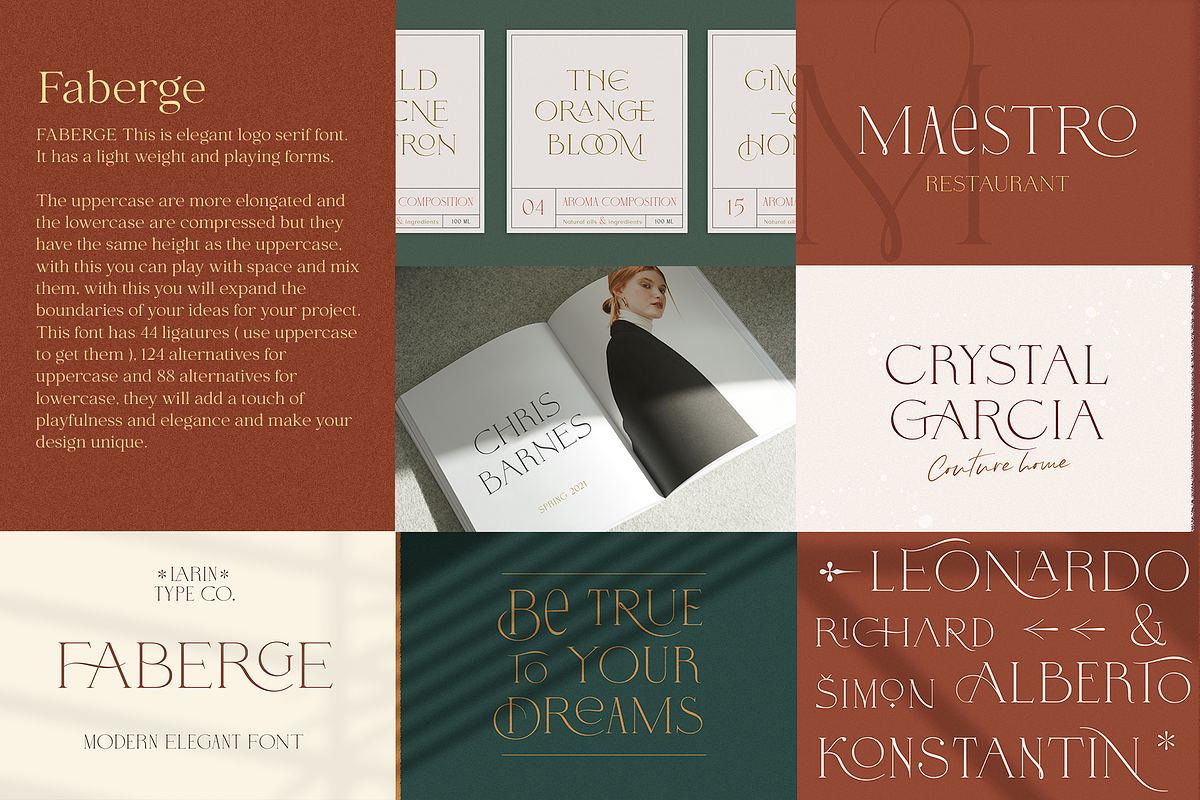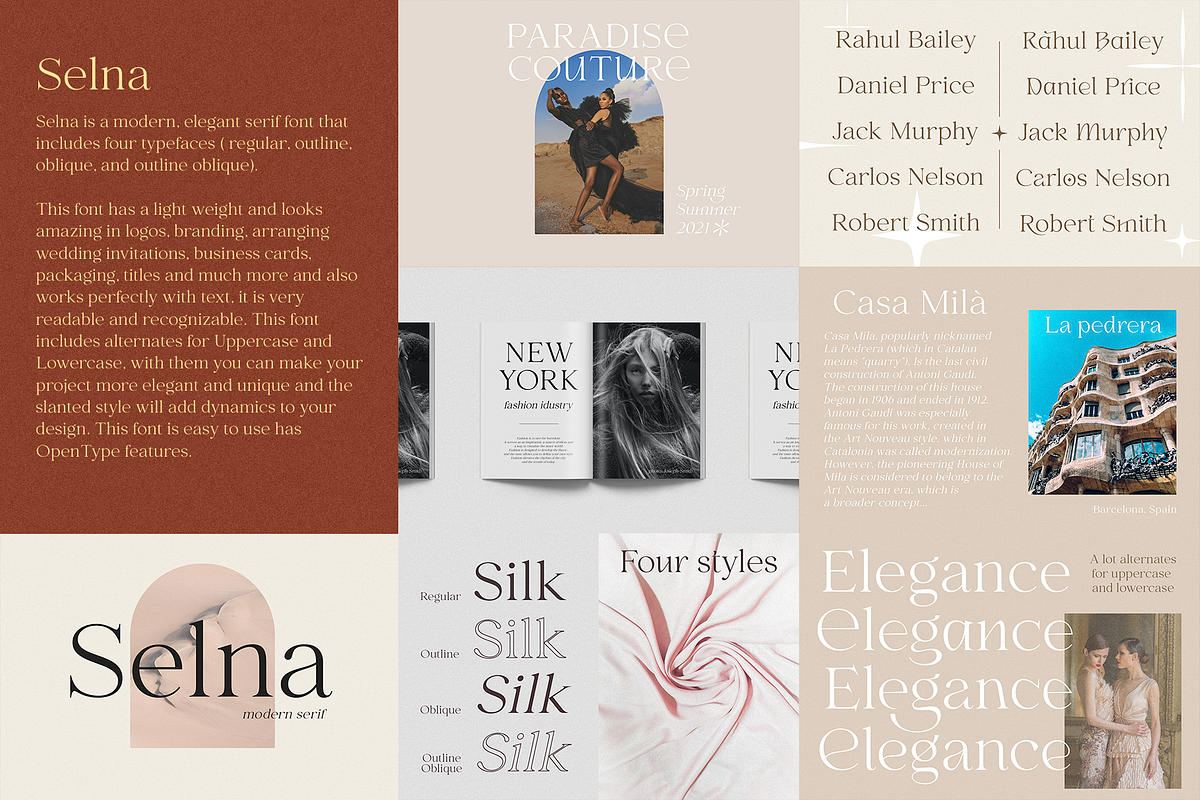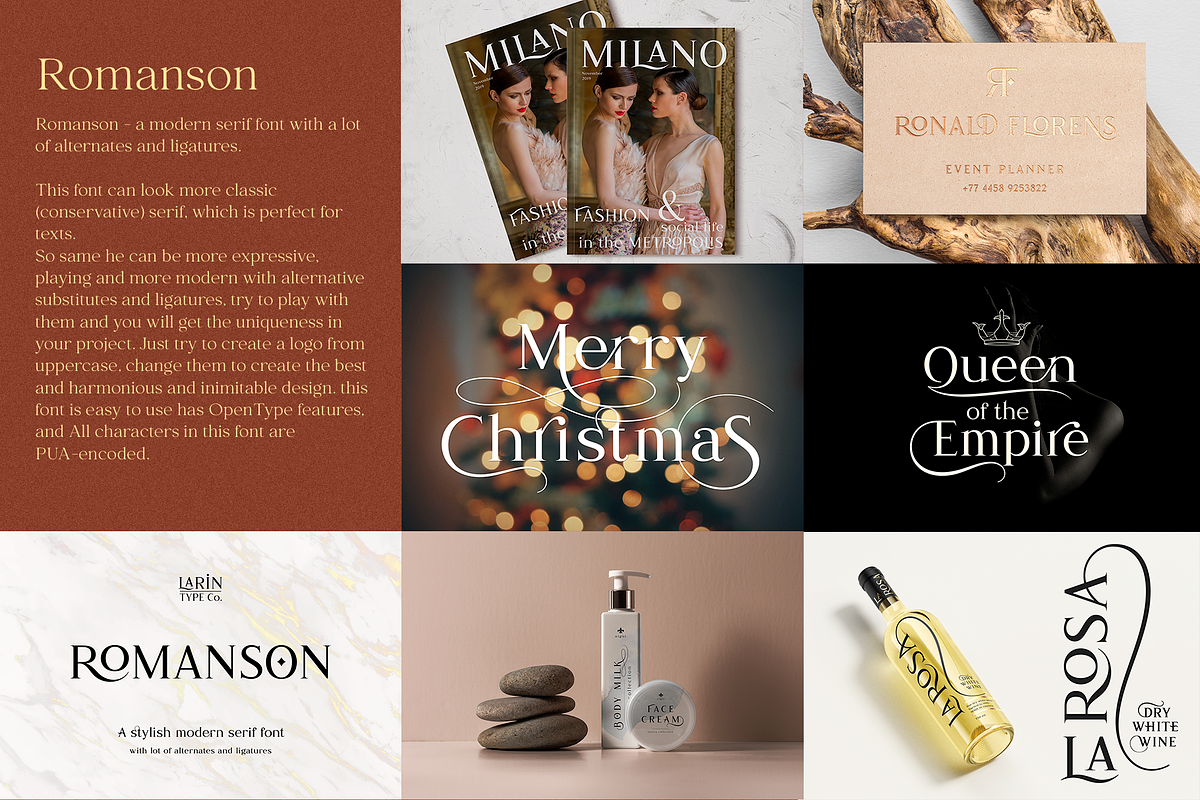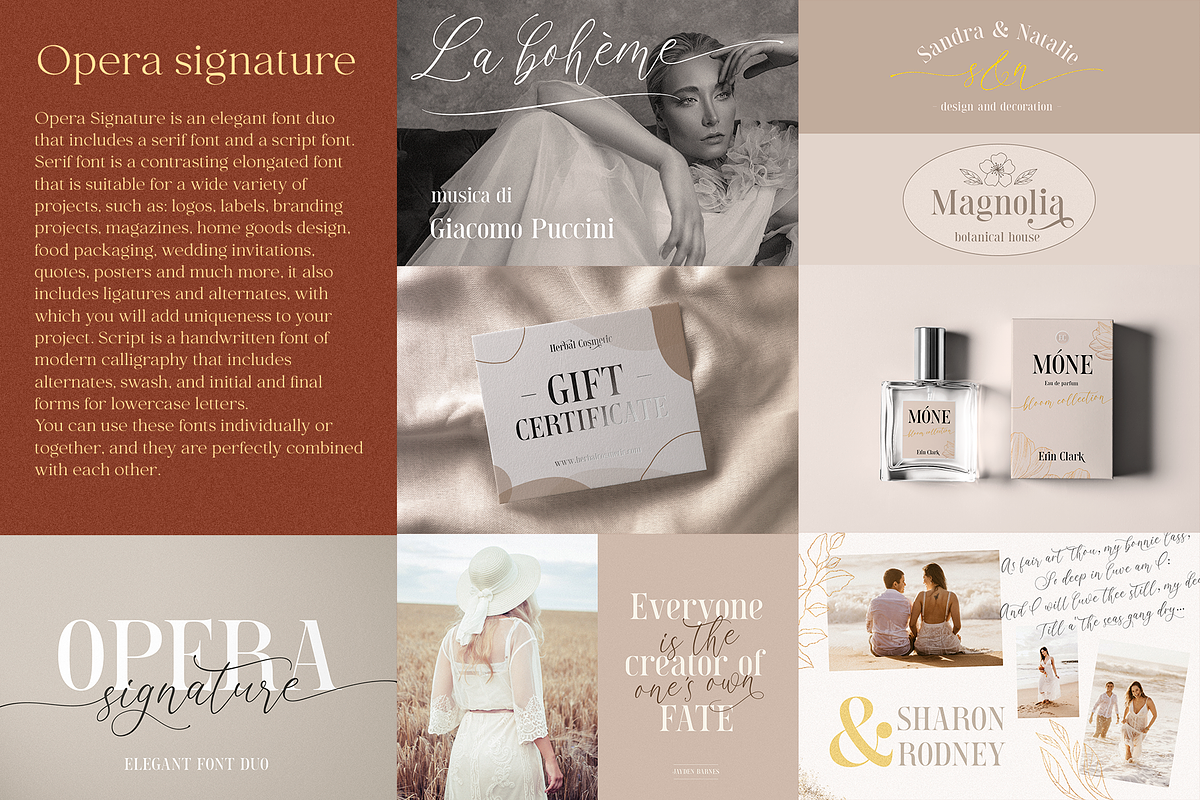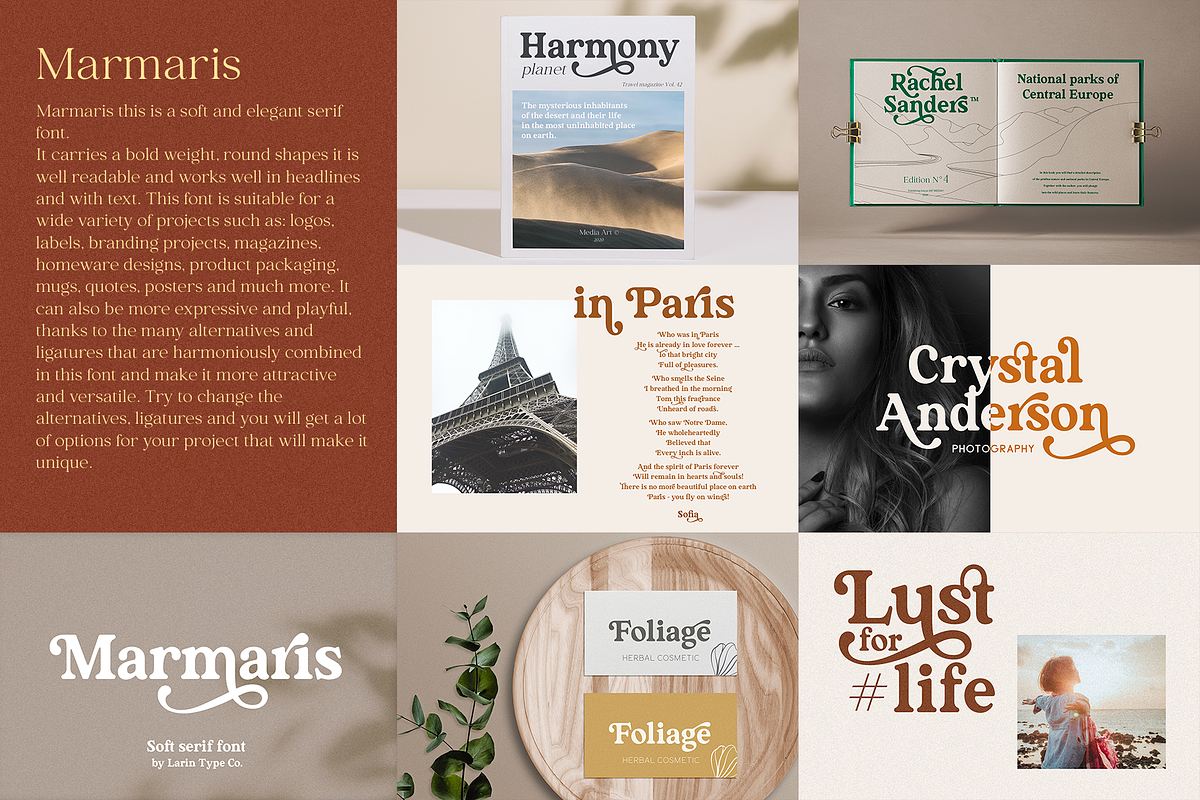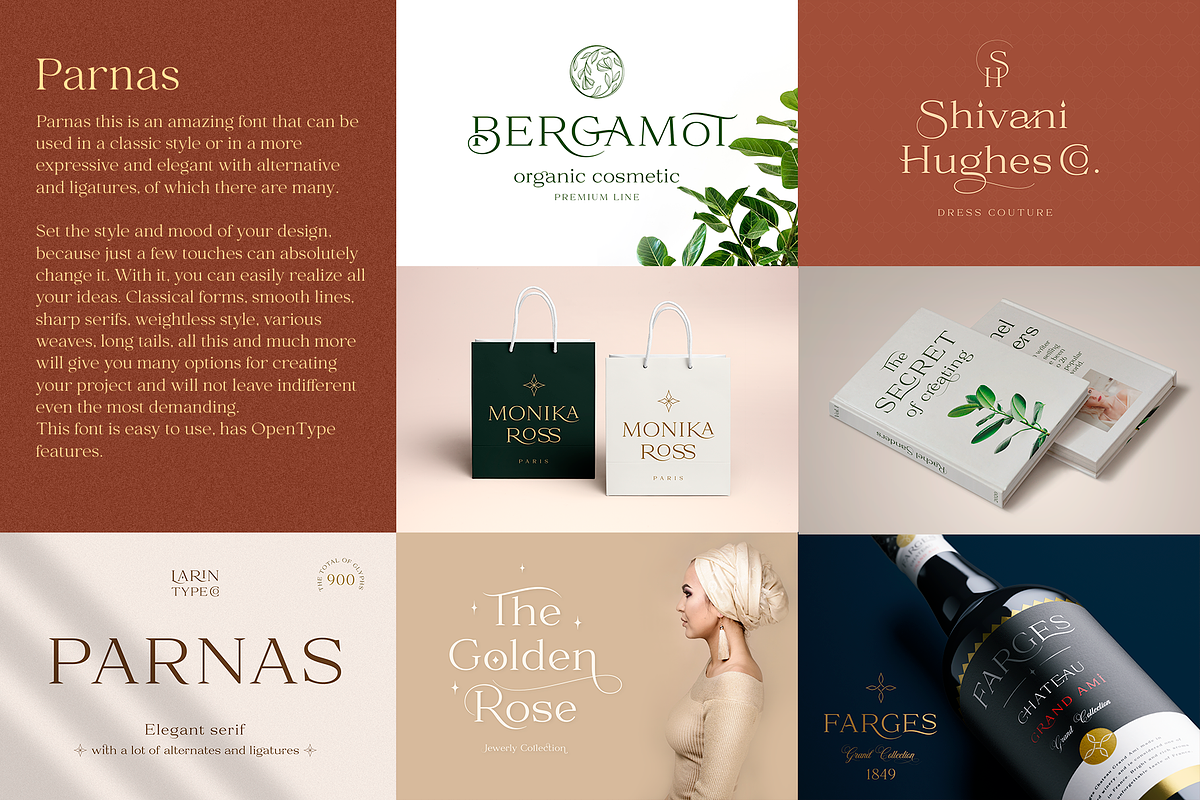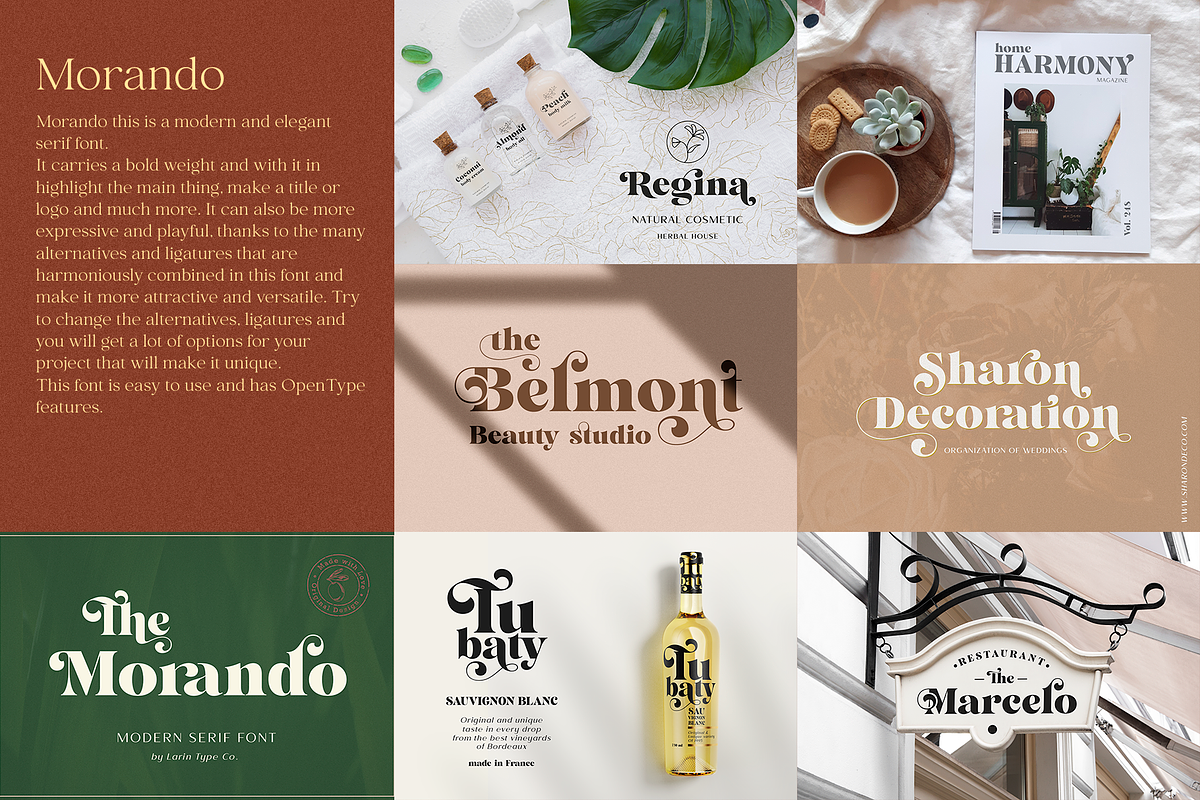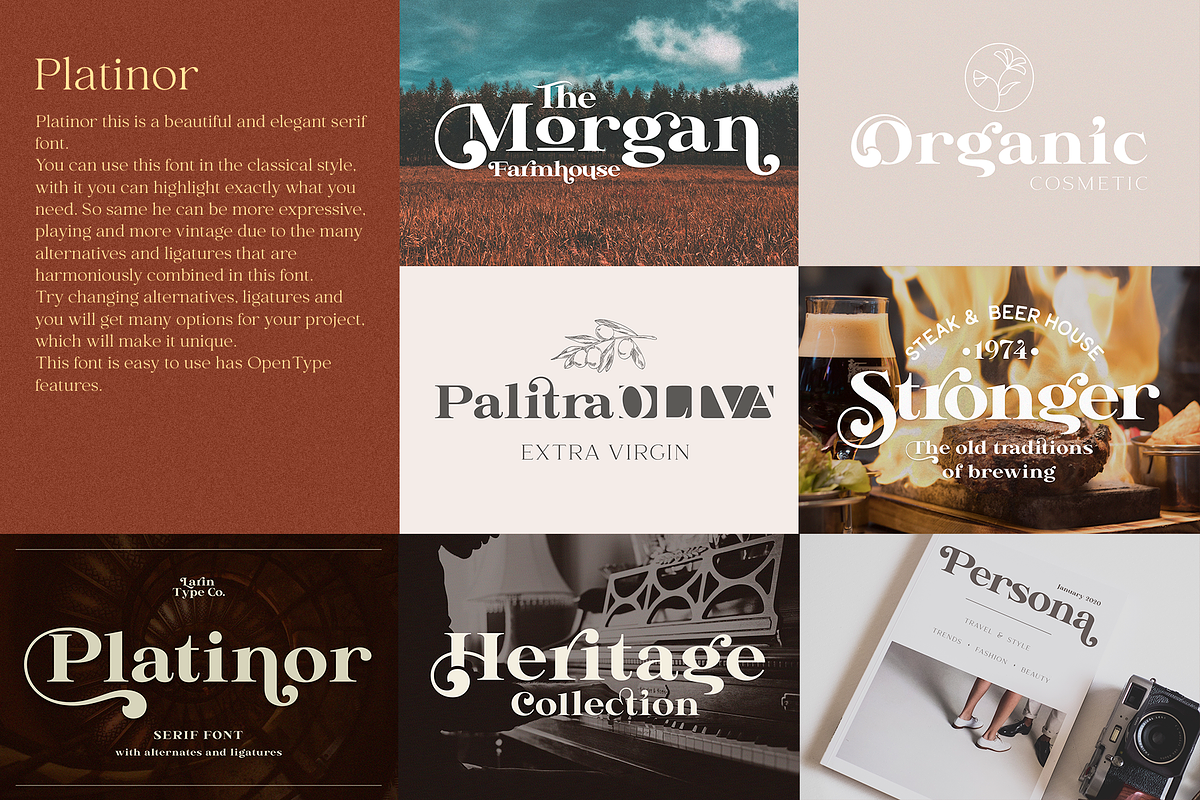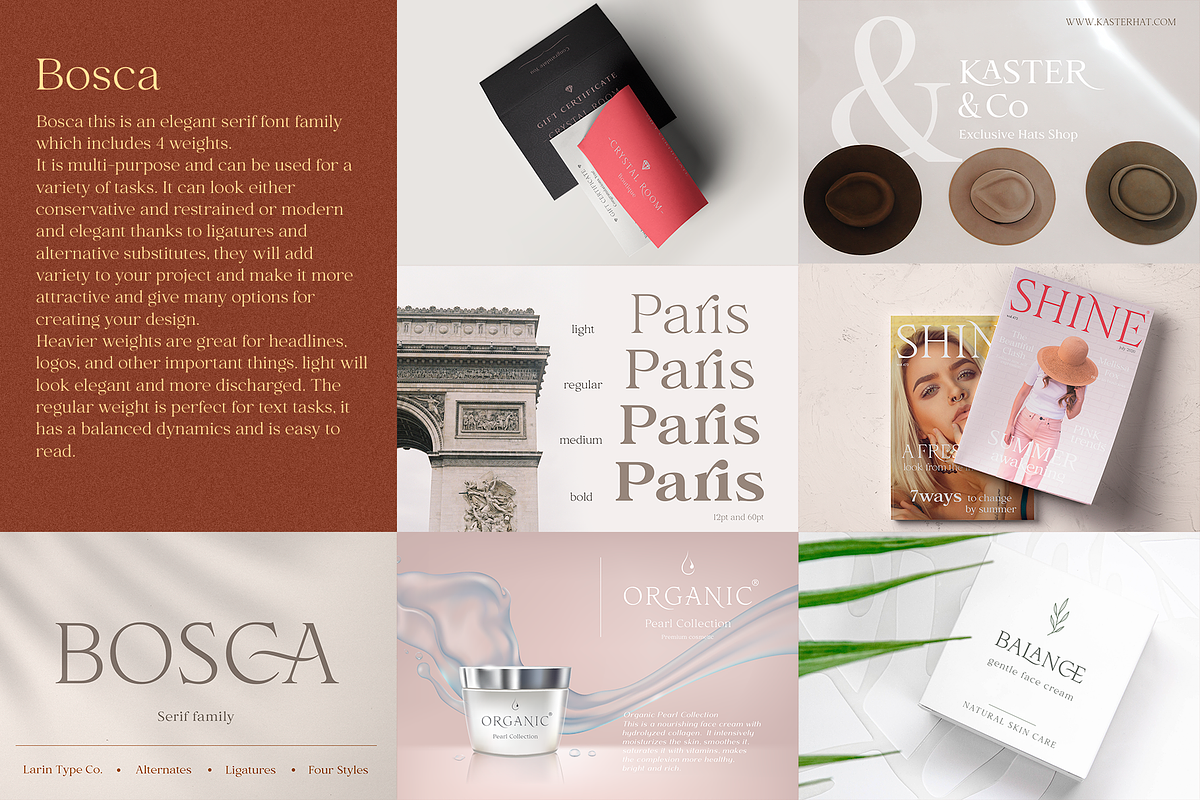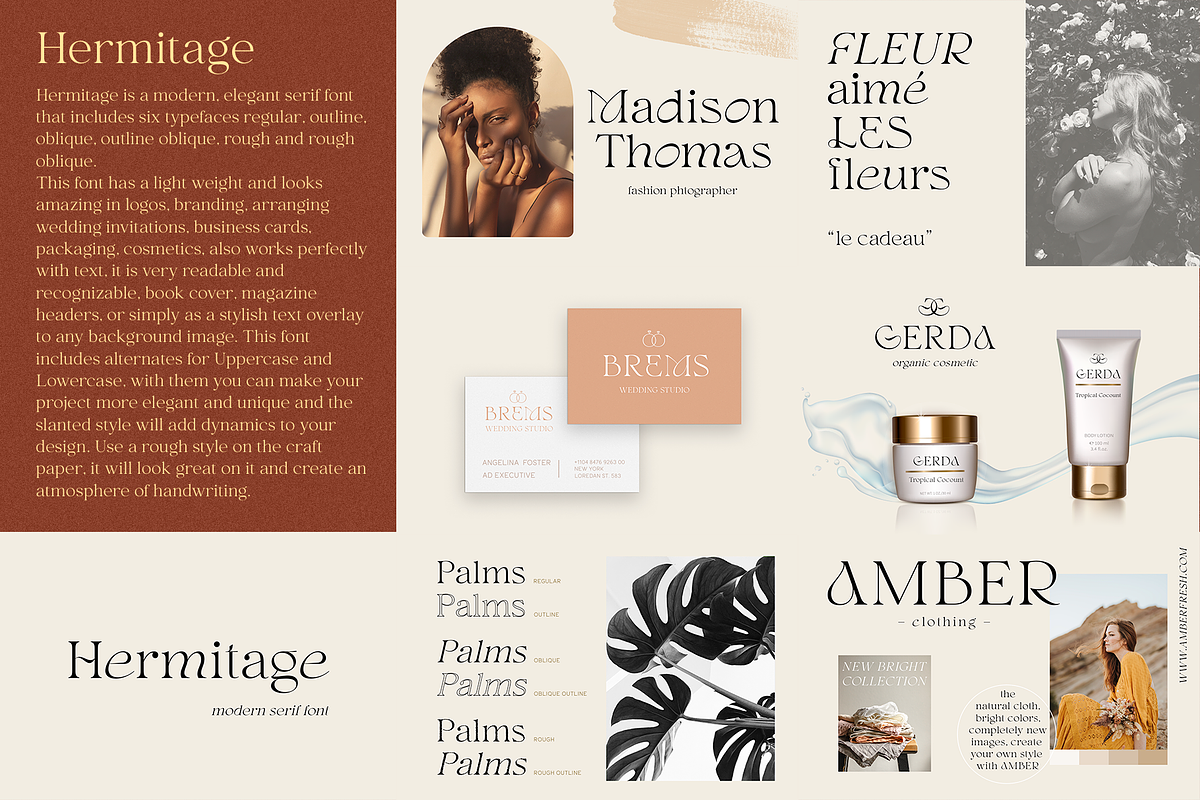
Elegant Serif Bundle
This is a selection of the best-selling my Serif font.
In this bundle you will find from thin and elegant to bold display serif. Whatever the theme, these fonts will be a great addition to your font library. These fonts are incredibly versatile and are suitable for a wide range of designs, raising them to the highest level.
The bundle includes 29 fonts packed into 16 elegant font families.
- Selna
- Enigma
- Bosca
- Opera signature
- Parnas
- The Morando
- The Buchen
- Hermitage
- Blaine
- Faberge
- Lerum
- Platinor
- Romanson
- Leronda
- Giordano Gold
- Marmaris